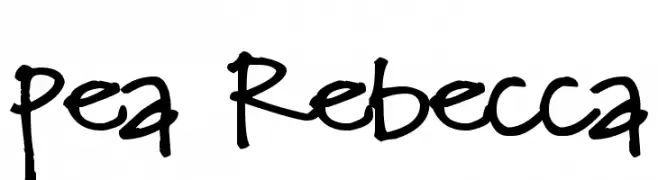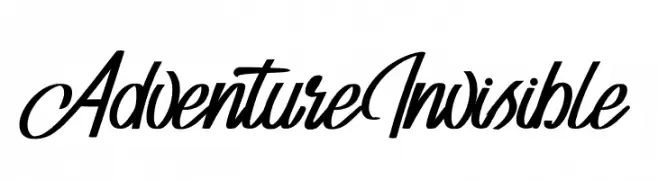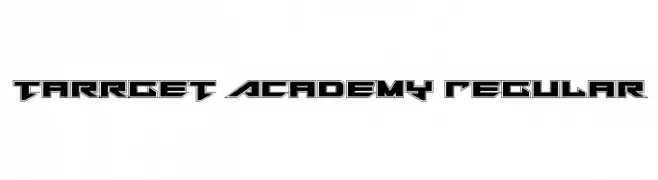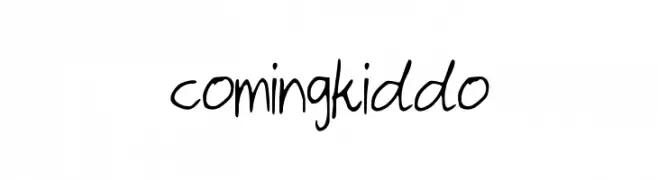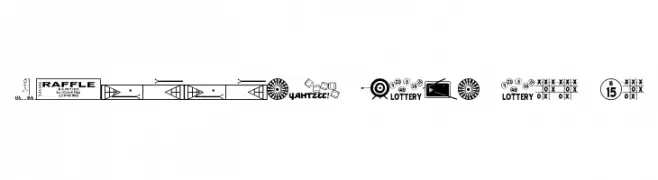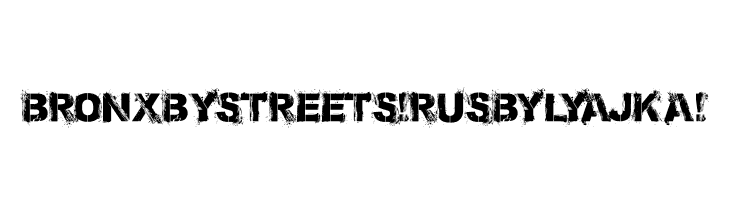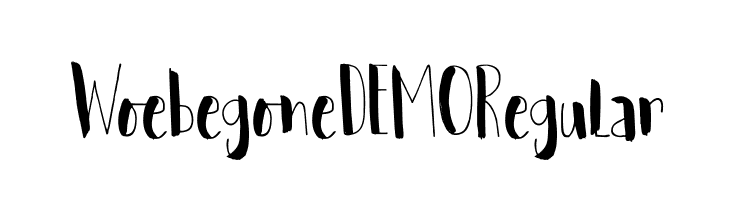
A pixelated, digital-style font with a retro, geometric design.
A rough, sketch-like font with dynamic, hand-drawn strokes.
A playful, casual handwritten font with a dynamic and lively feel.
A bold, playful font with thick, rounded characters and a cartoonish style.
A bold, cursive font with a dynamic and flowing style.
A bold, futuristic font with sharp angles and a three-dimensional appearance.
A versatile font combining decorative curls with bold, modern characters.
A playful, handwritten font with a casual and dynamic style.
A bold, decorative font with a vintage horror comic book style.
A playful collection of game-themed symbols for decorative use.